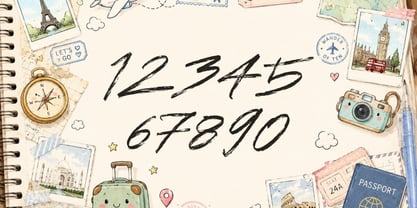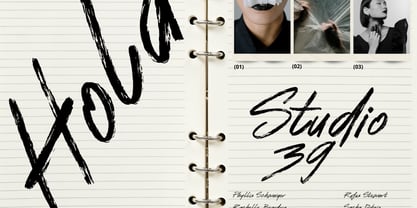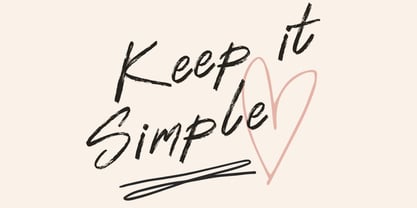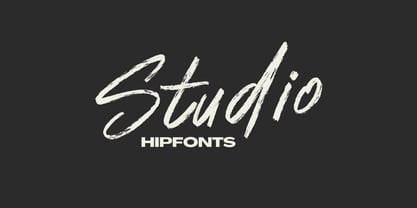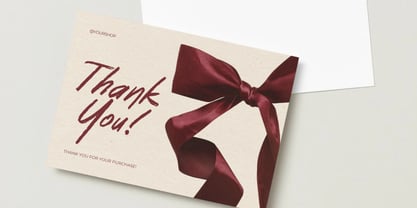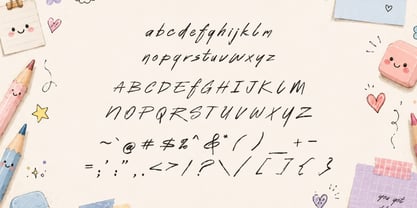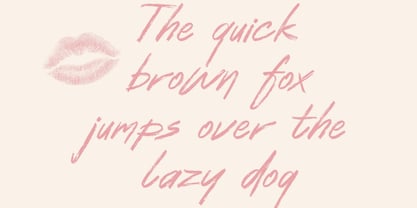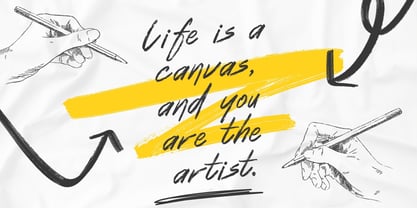
North Stroke
La famille de polices North Stroke a été conçue par Igor Ovsyannykov et publiée par Hipfonts. North Stroke contient 1 styles. En savoir plus sur cette famille
North Stroke is a bold and expressive brush font created entirely by hand. Every character captures the raw energy of real brush lettering, preserving the natural pressure changes, organic textures, and spontaneous imperfections that make hand-drawn typography feel alive.
Unlike sterile digital fonts, North Stroke embraces the beauty of authenticity. Each letter showcases genuine brush movement and flowing strokes that create a dynamic rhythm across words and headlines. The result is a typeface that feels personal, artistic, and effortlessly modern.
Designed for creators who want their work to stand out, North Stroke strikes the perfect balance between readability and creative freedom. Its experimental character structure adds a contemporary edge while maintaining the handcrafted warmth that audiences instantly connect with.
Whether you're designing logos, album covers, social media graphics, apparel, packaging, posters, YouTube thumbnails, branding projects, merchandise, book covers, stickers, or editorial layouts, North Stroke delivers instant visual impact with a confident handcrafted voice.
The font's energetic brushwork creates a sense of movement and emotion, making it ideal for projects that need authenticity, creativity, and personality. From streetwear brands and creative agencies to musicians, content creators, and small businesses, North Stroke provides a versatile tool for bold visual storytelling.